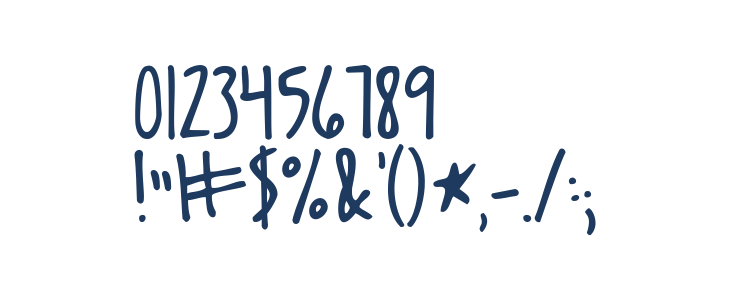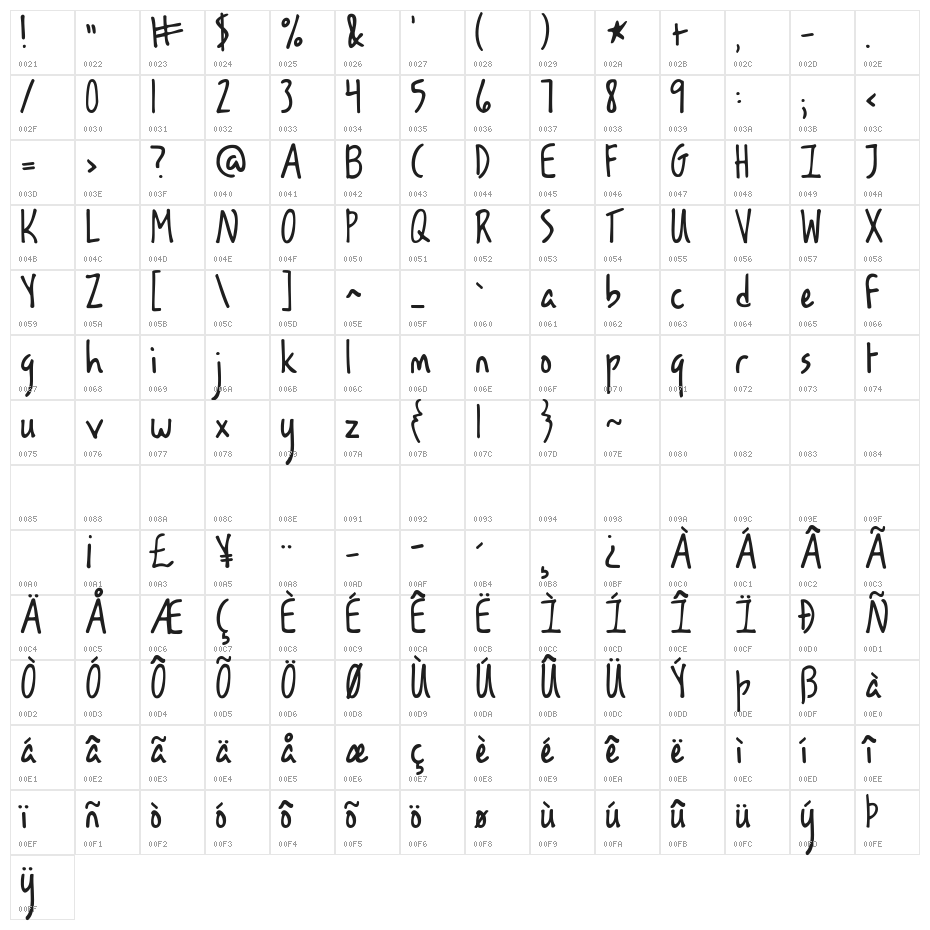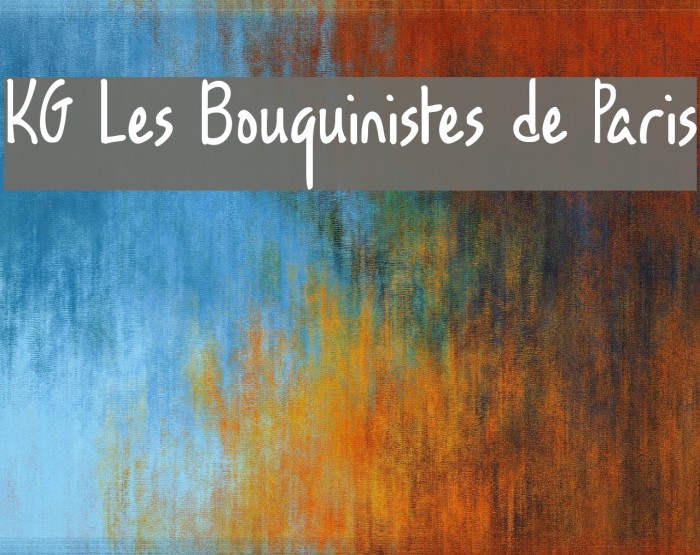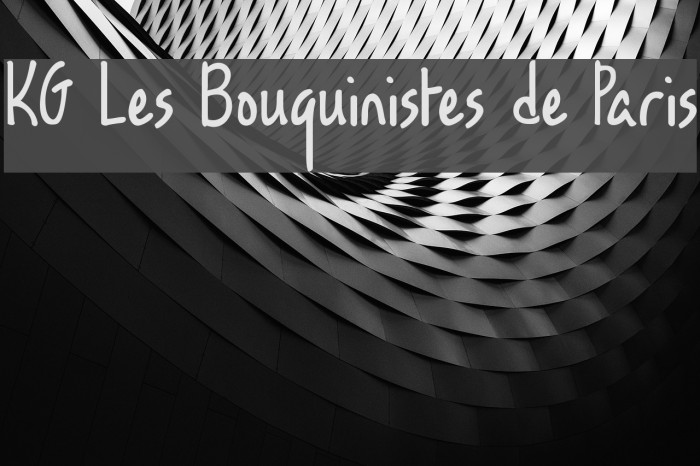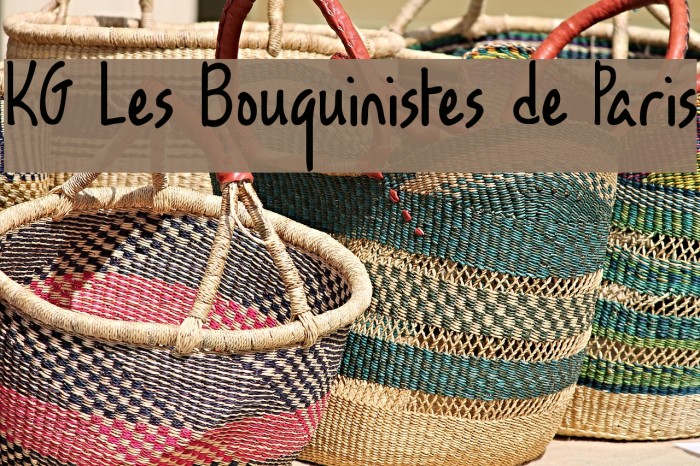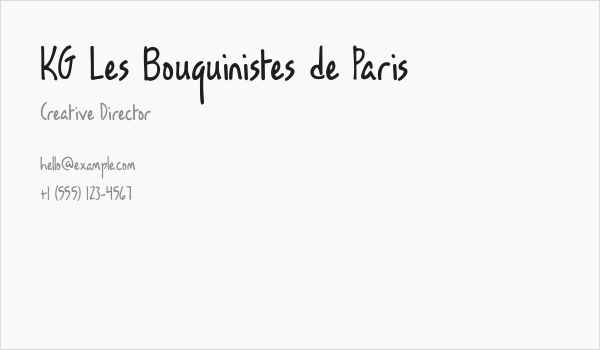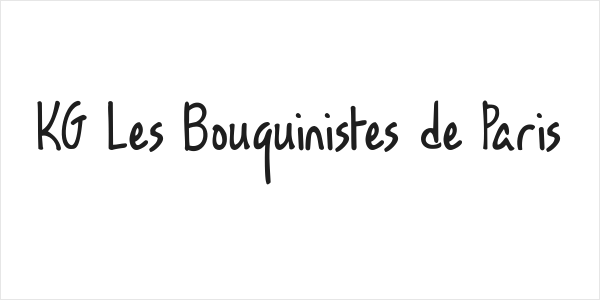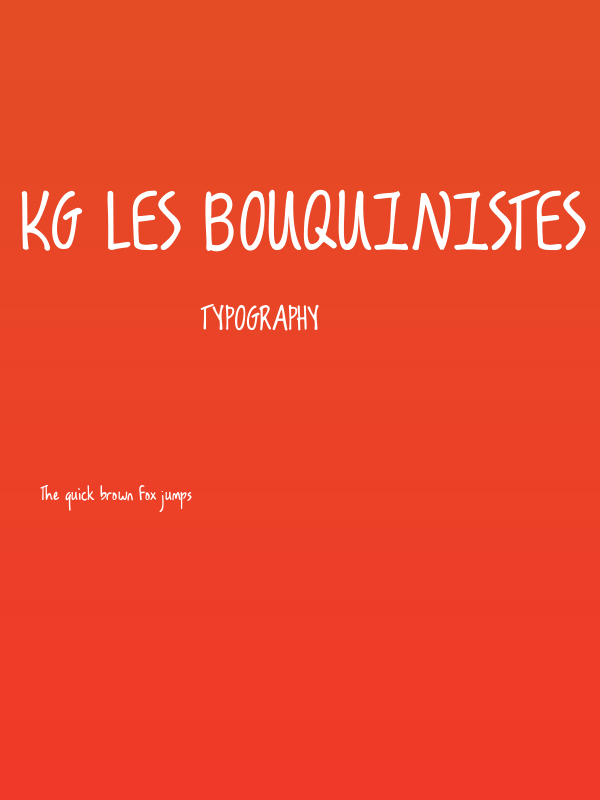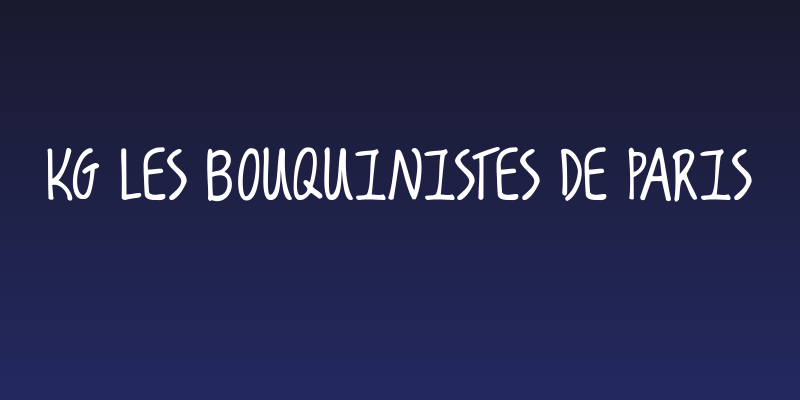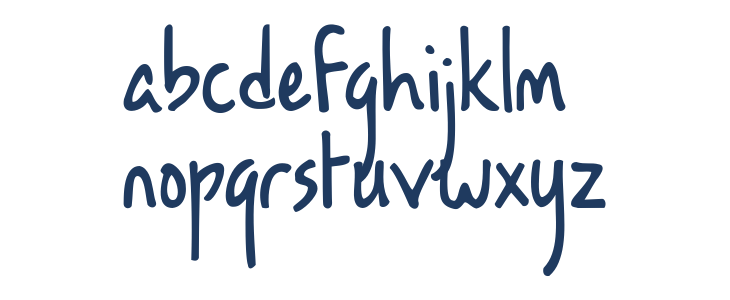
KG Les Bouquinistes de Paris Font
KG Les Bouquinistes de Paris Description
This font features a playful and informal handwritten style, characterized by its irregular and slightly whimsical letterforms. Each character is distinct, with varying heights and widths, giving it a lively and dynamic appearance. The strokes are smooth and rounded, contributing to its approachable and friendly vibe. The font maintains a consistent stroke weight throughout, ensuring readability while preserving its casual aesthetic. It includes a full set of uppercase and lowercase letters, numerals, and a variety of punctuation marks and special characters, making it versatile for various design needs.
| Use Case | Headlines, Invitations, Personal projects |
| Proposed Projects | Ideal for children's books, greeting cards, personal blogs, and creative branding projects. |